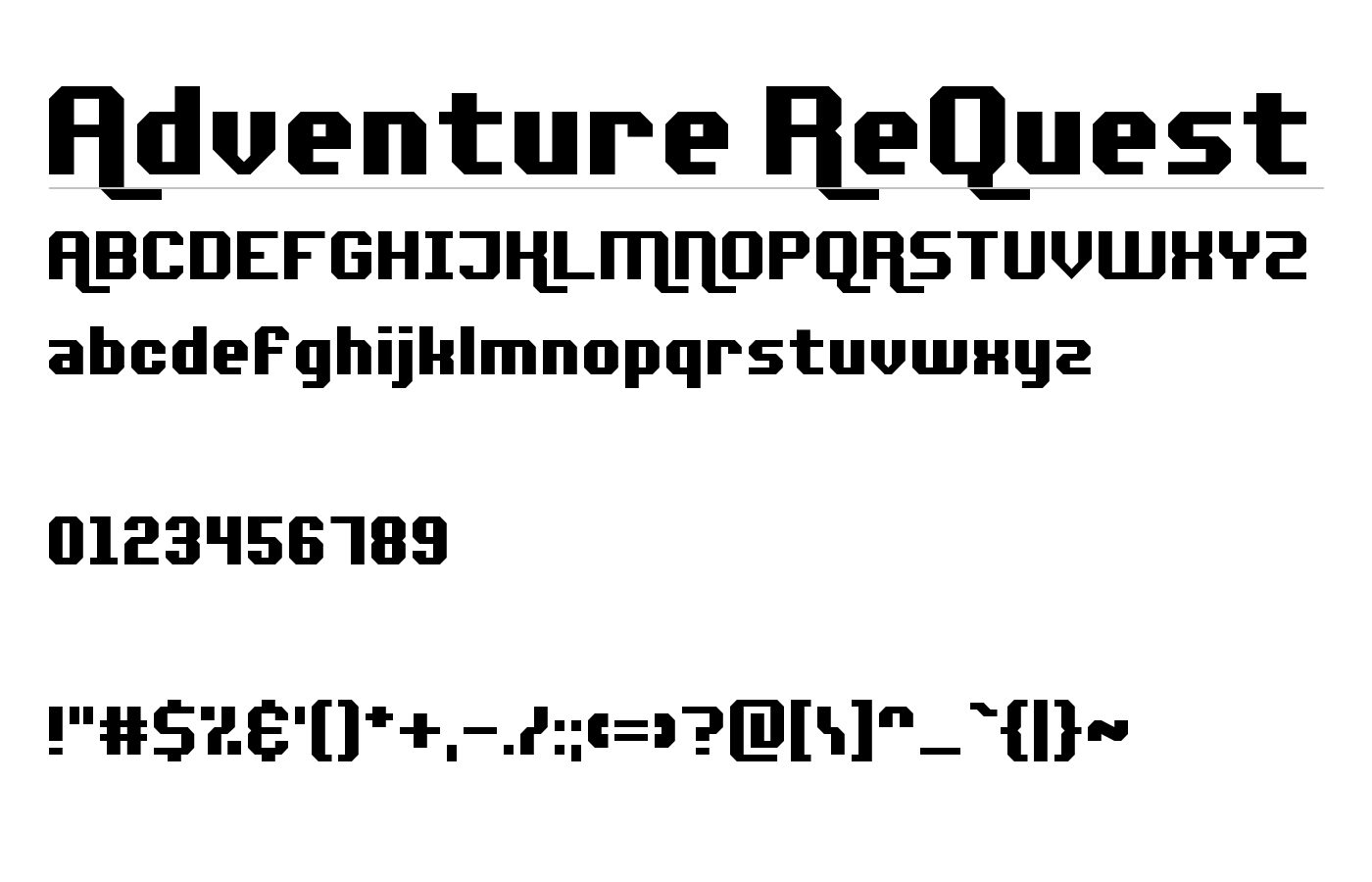
Adventure ReQuest is a bold, condensed sans serif font with a strong geometric and slightly angular design that evokes a sense of adventure and retro gaming. Its blocky letterforms, unique terminal cuts, and uniform stroke weight give it a sturdy, futuristic feel, making it ideal for logos, posters, and headlines that need to convey strength and excitement in a modern or nostalgic context. This font works best in display settings where its distinctive personality can stand out and capture attention.
Adventure ReQuest Font
About Adventure ReQuest Font